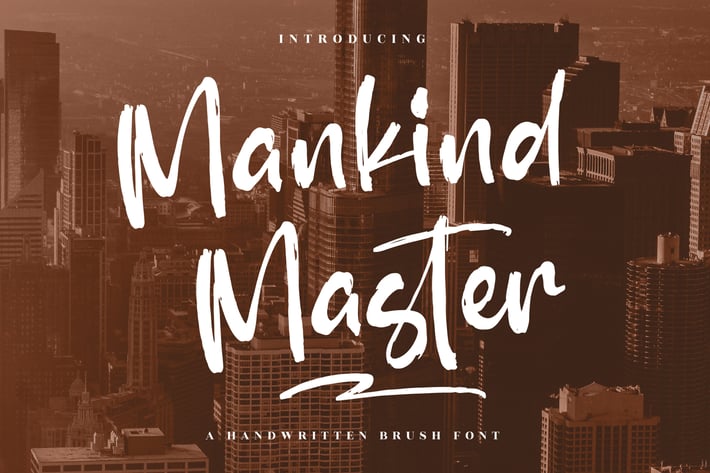
Mankind Master Handwritten Brush Font
Mankind Master is a powerful handwritten brush font crafted with bold strokes and a gritty urban vibe for designs that need instant impact. Its rough texture, energetic movement, and authentic marker feel make it perfect for street-style branding, posters, and punchy headlines that look loud and confident.
Handwritten brush font with bold, rough texture
Strong uppercase style for high-impact headlines
Natural brush strokes with energetic rhythm
Great for urban, sporty, and modern layouts
Streetwear logos and clothing designs
Posters, flyers, and event promotions
Sports branding and motivational quotes
Social media headers and cover graphics
Packaging and labels with a bold attitude
Bold strokes, raw texture, zero hesitation — a brush font made to shout your message.*